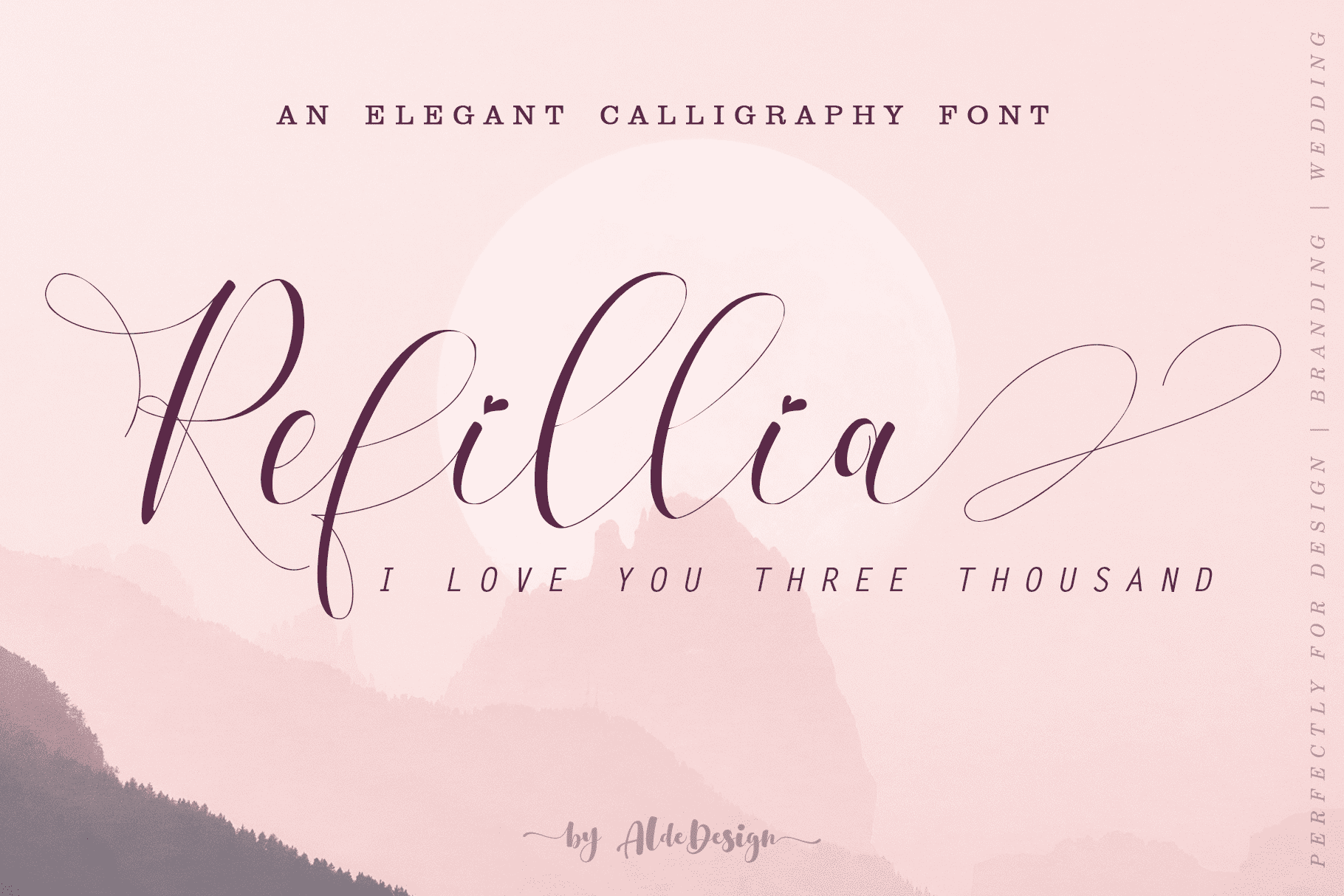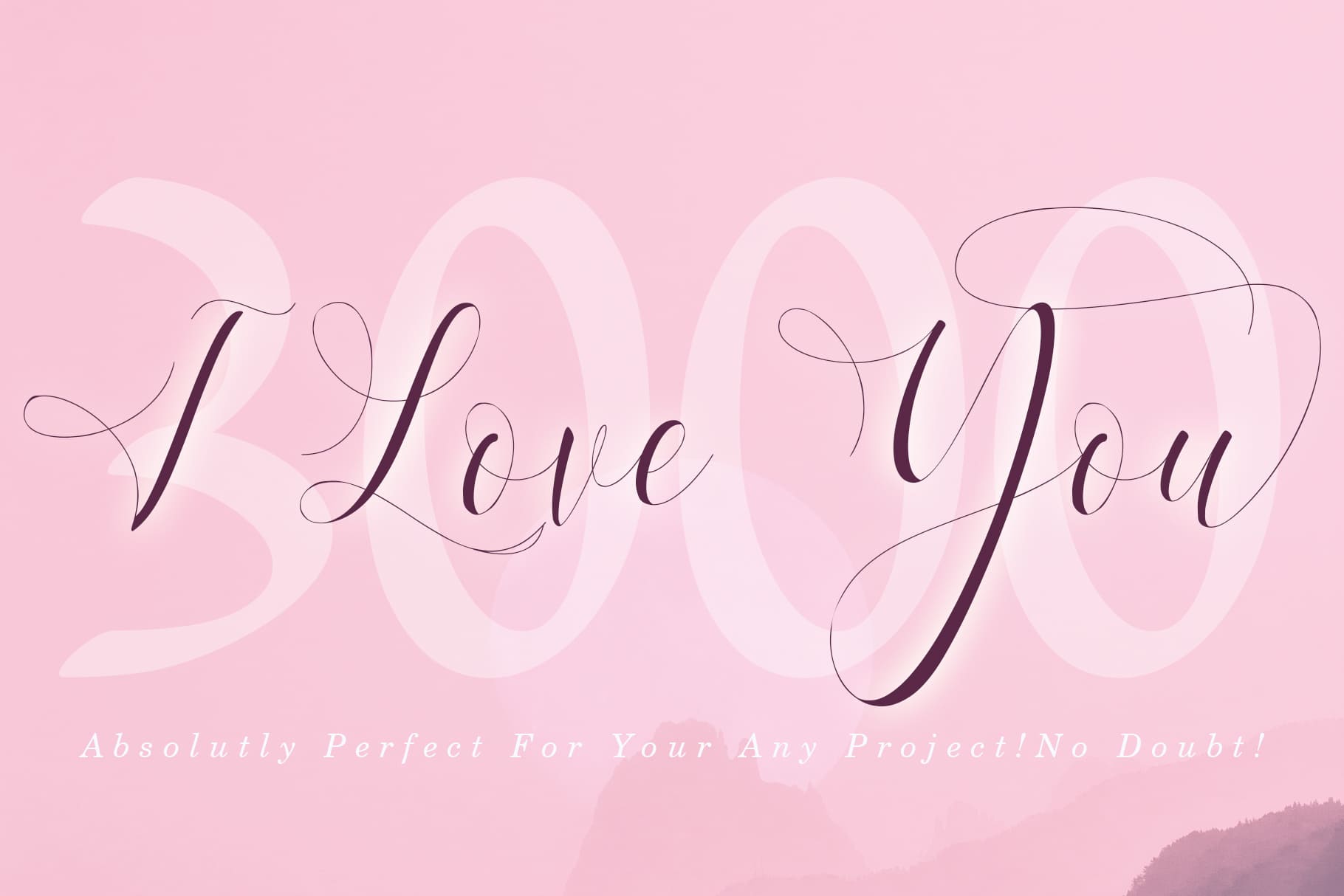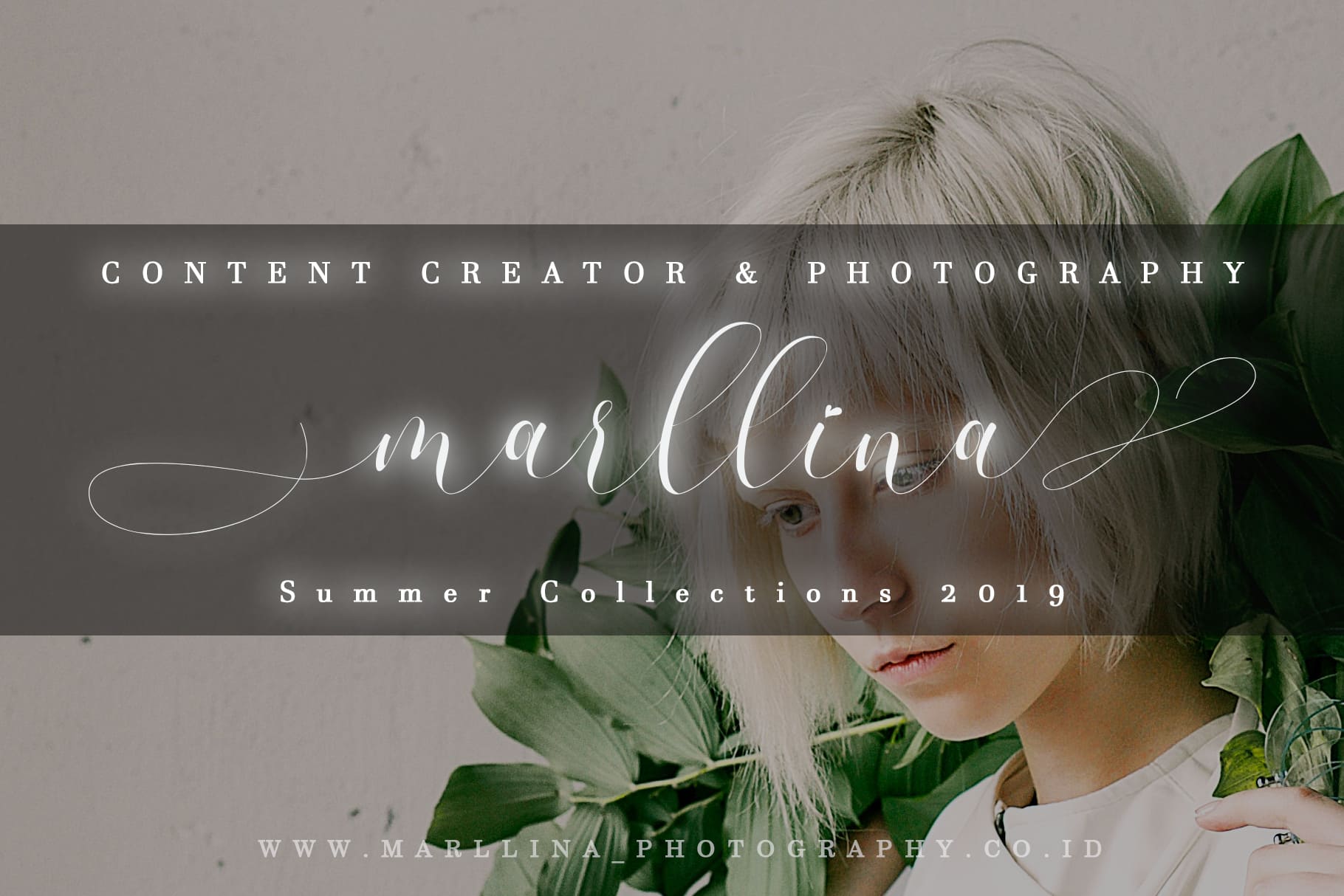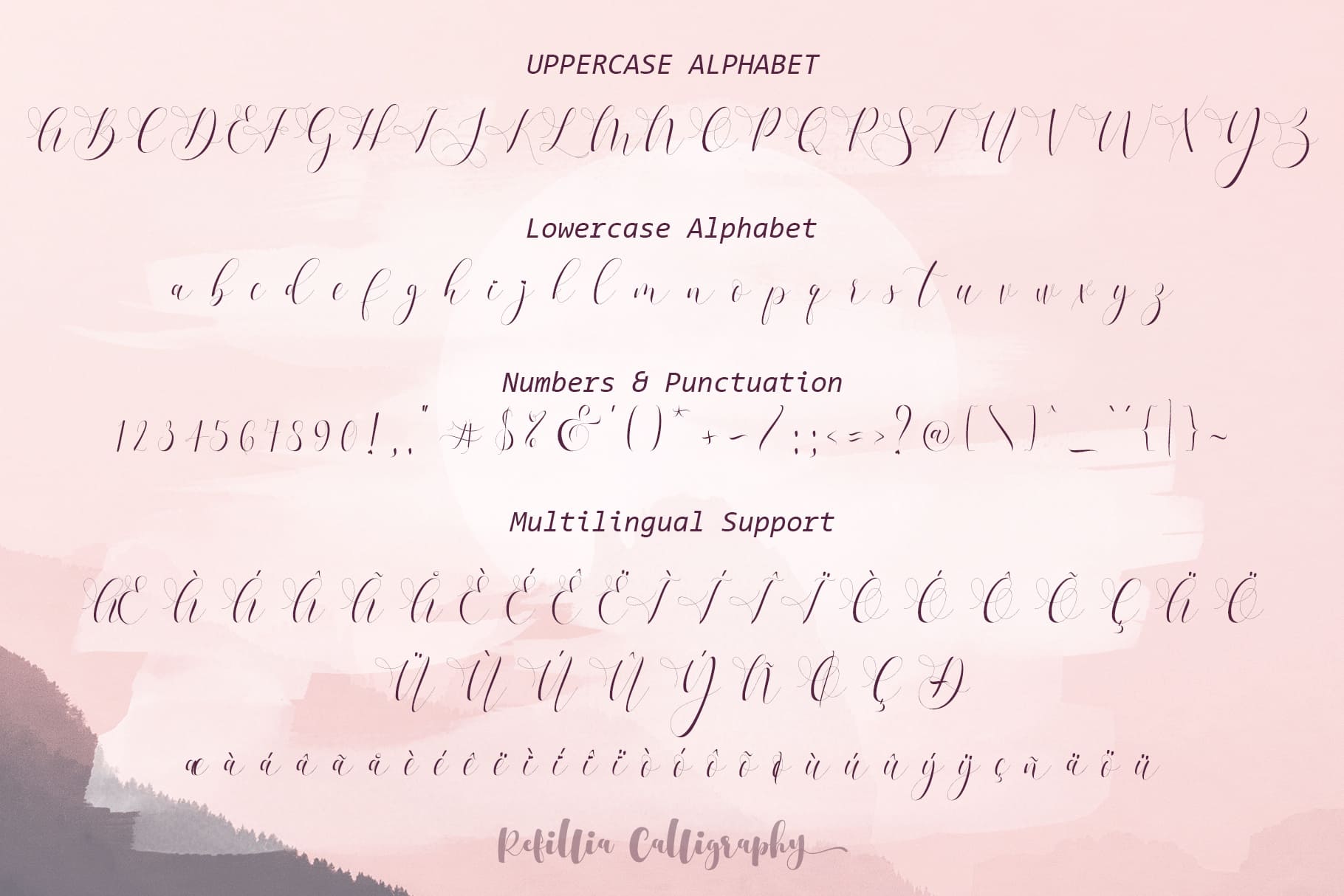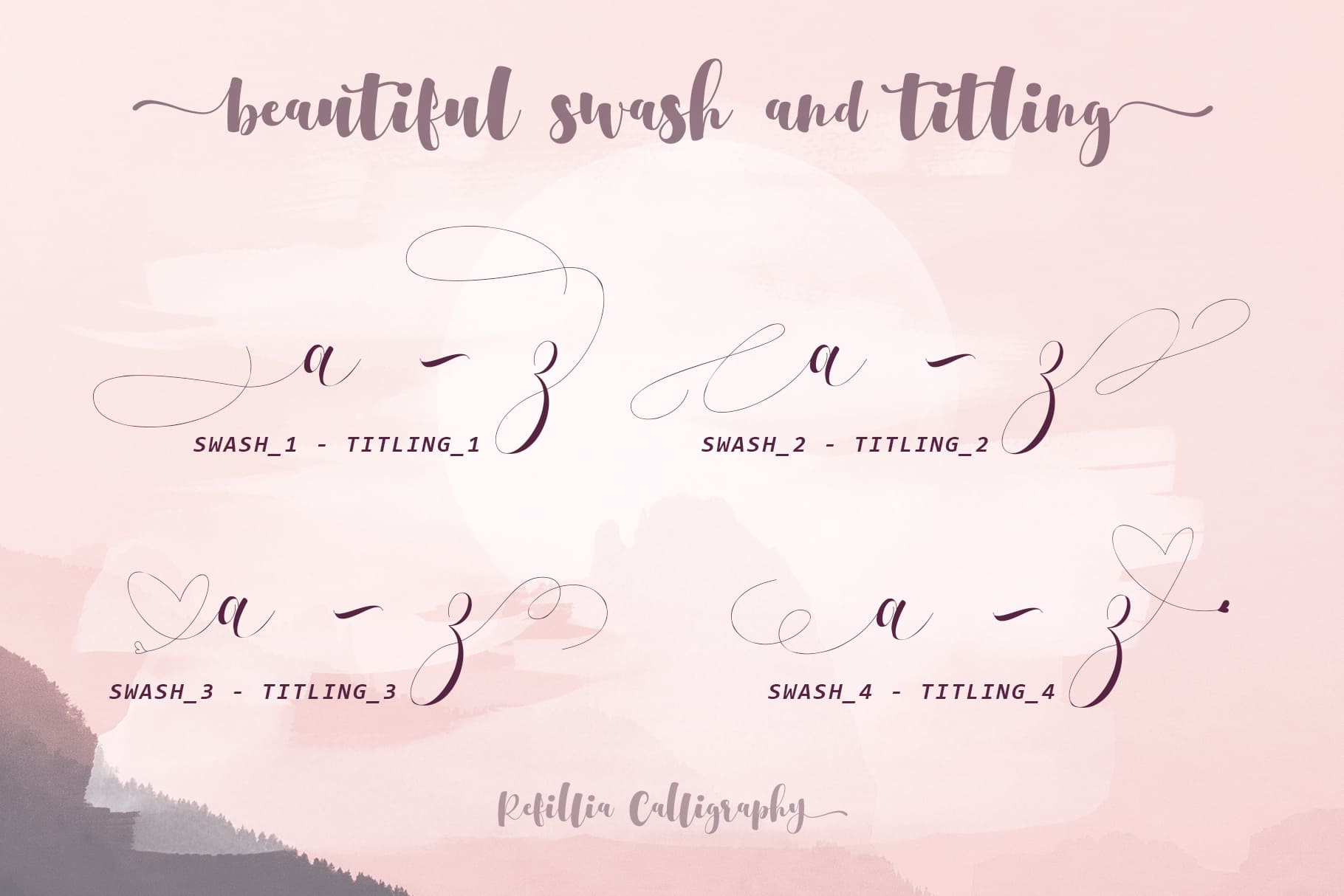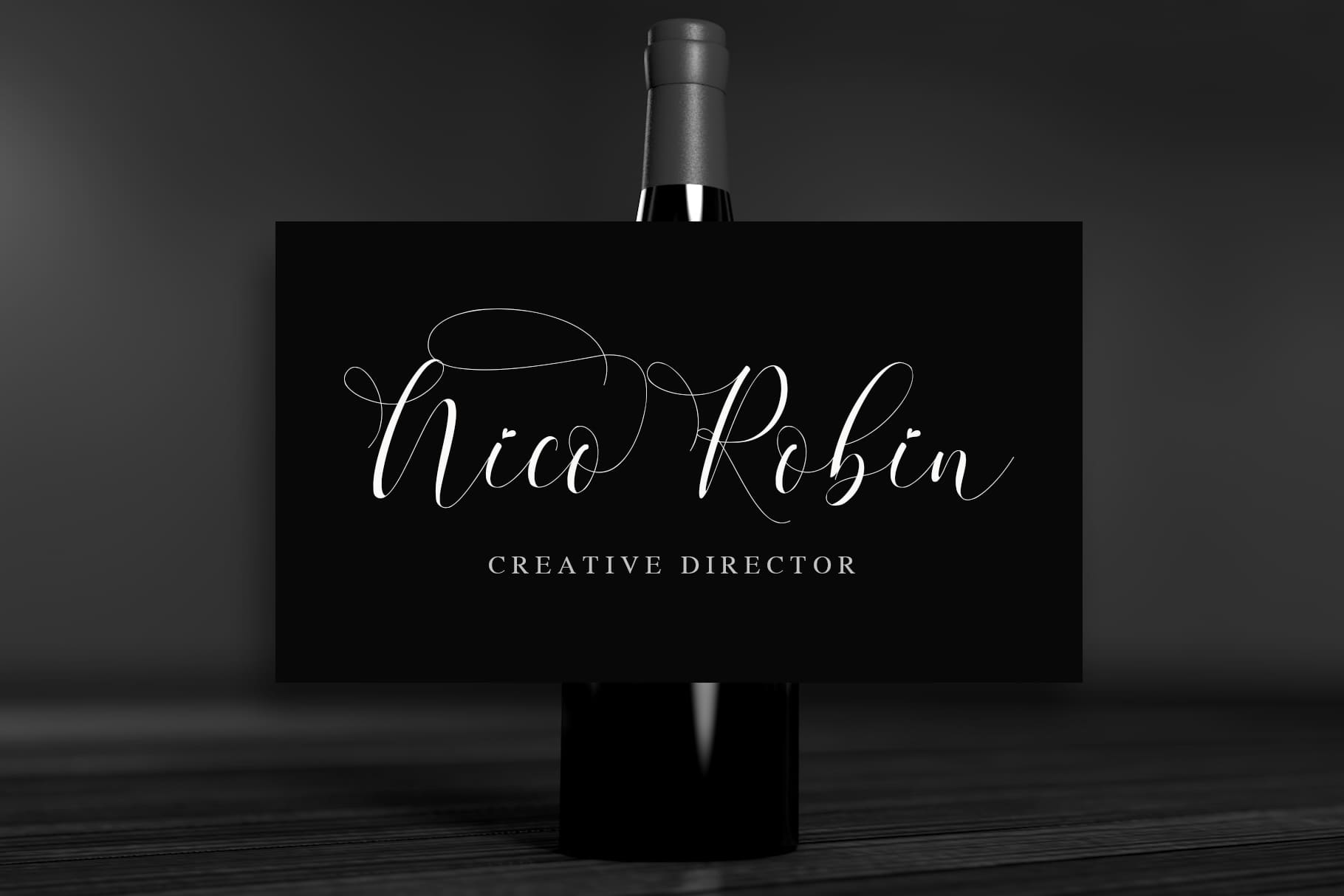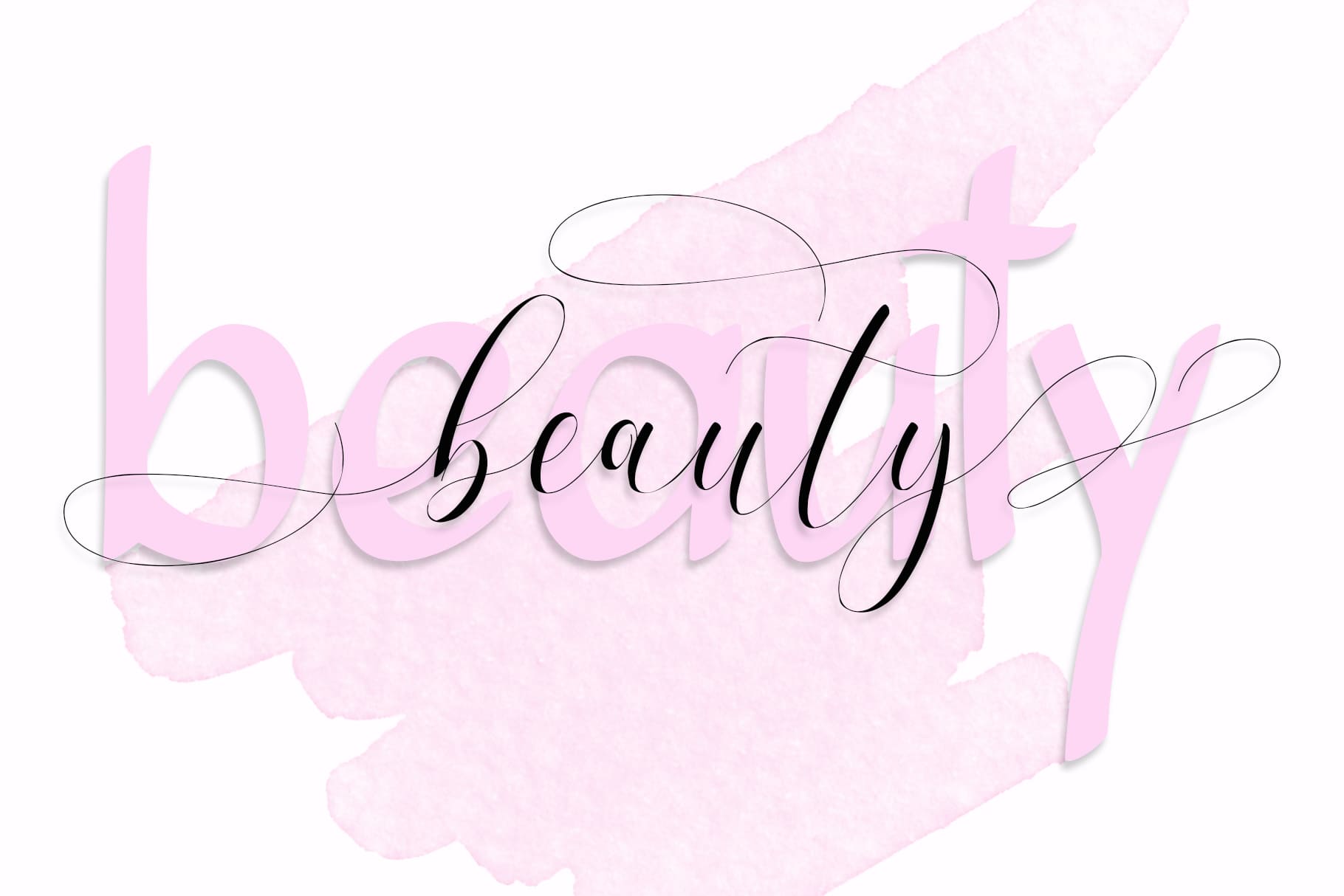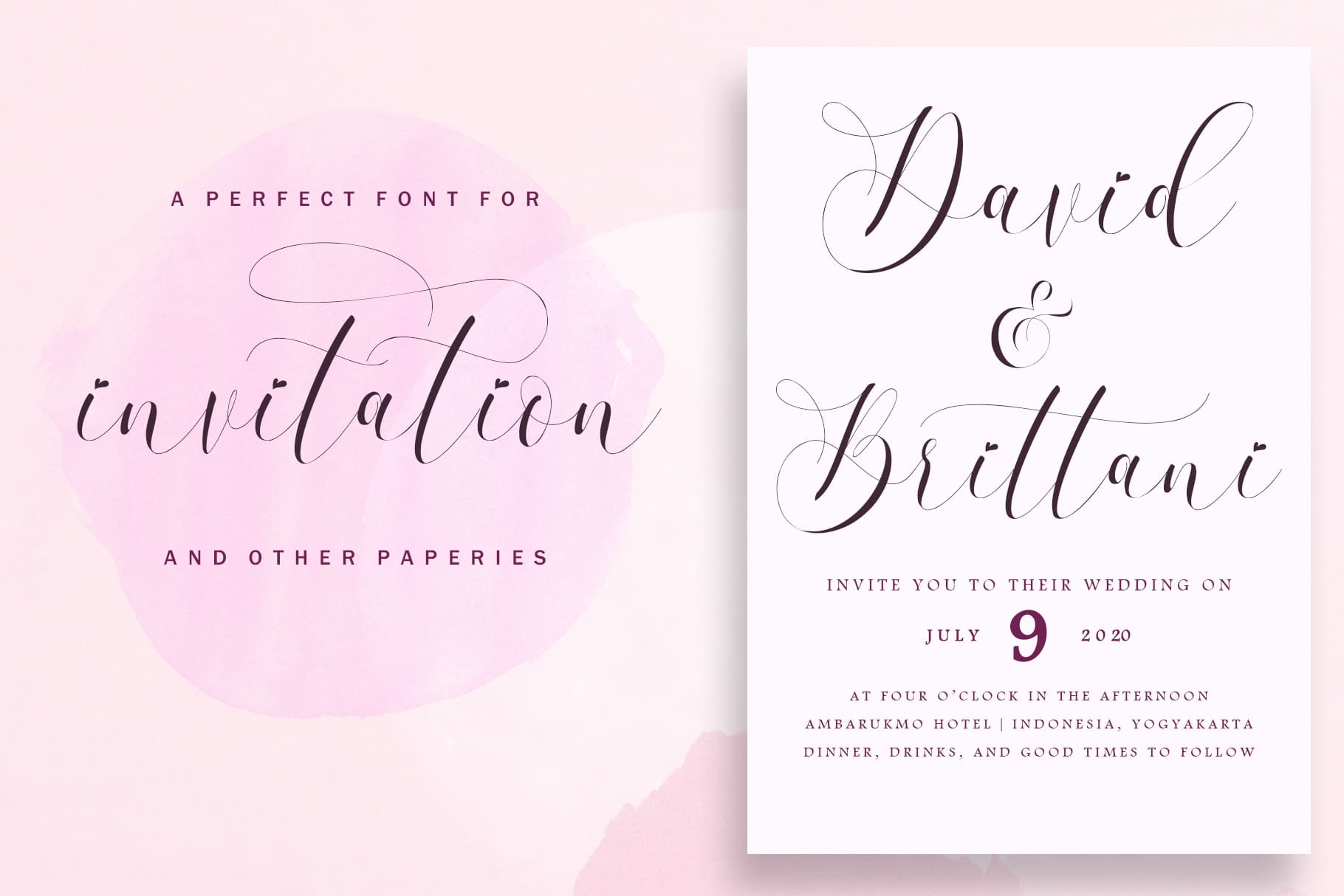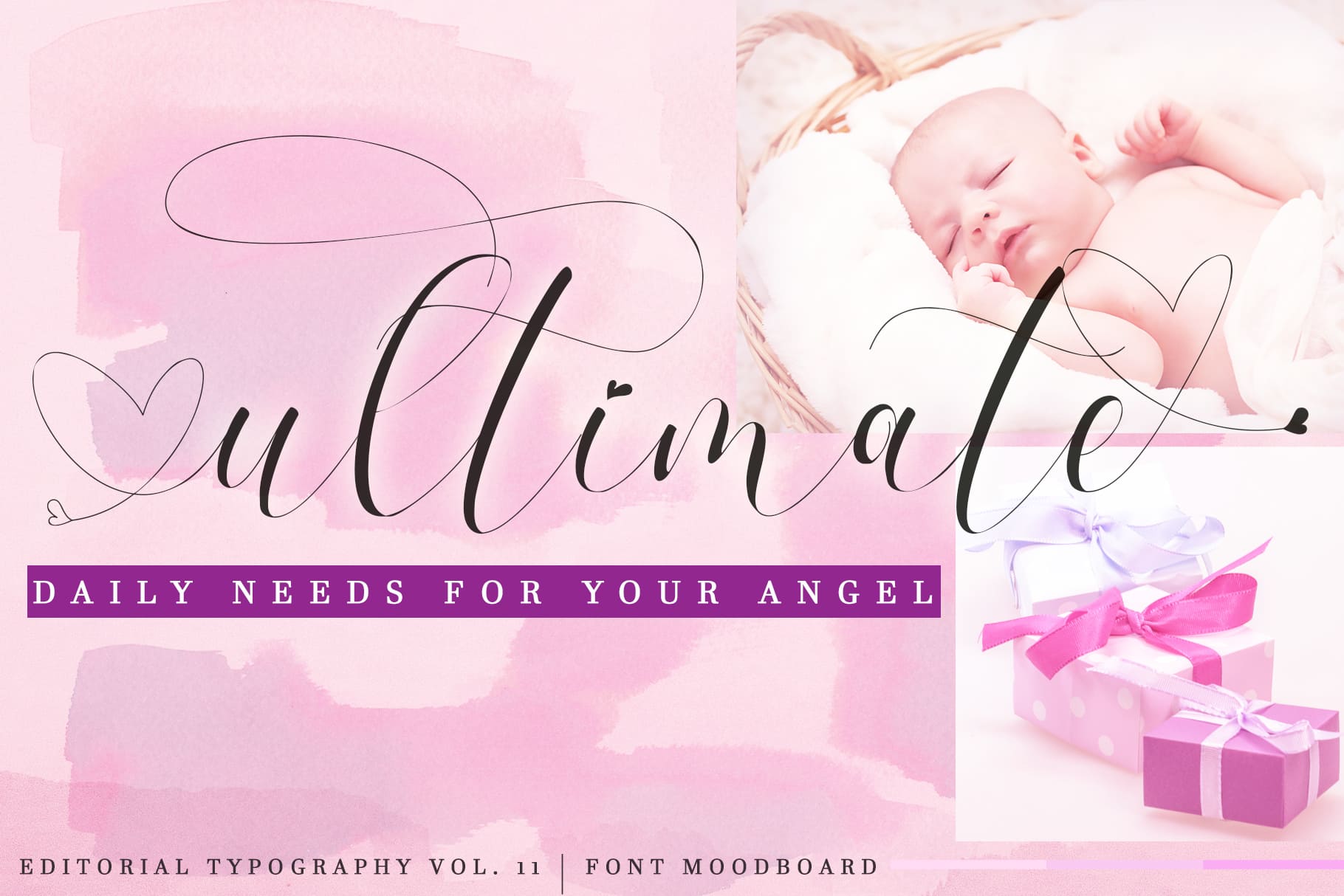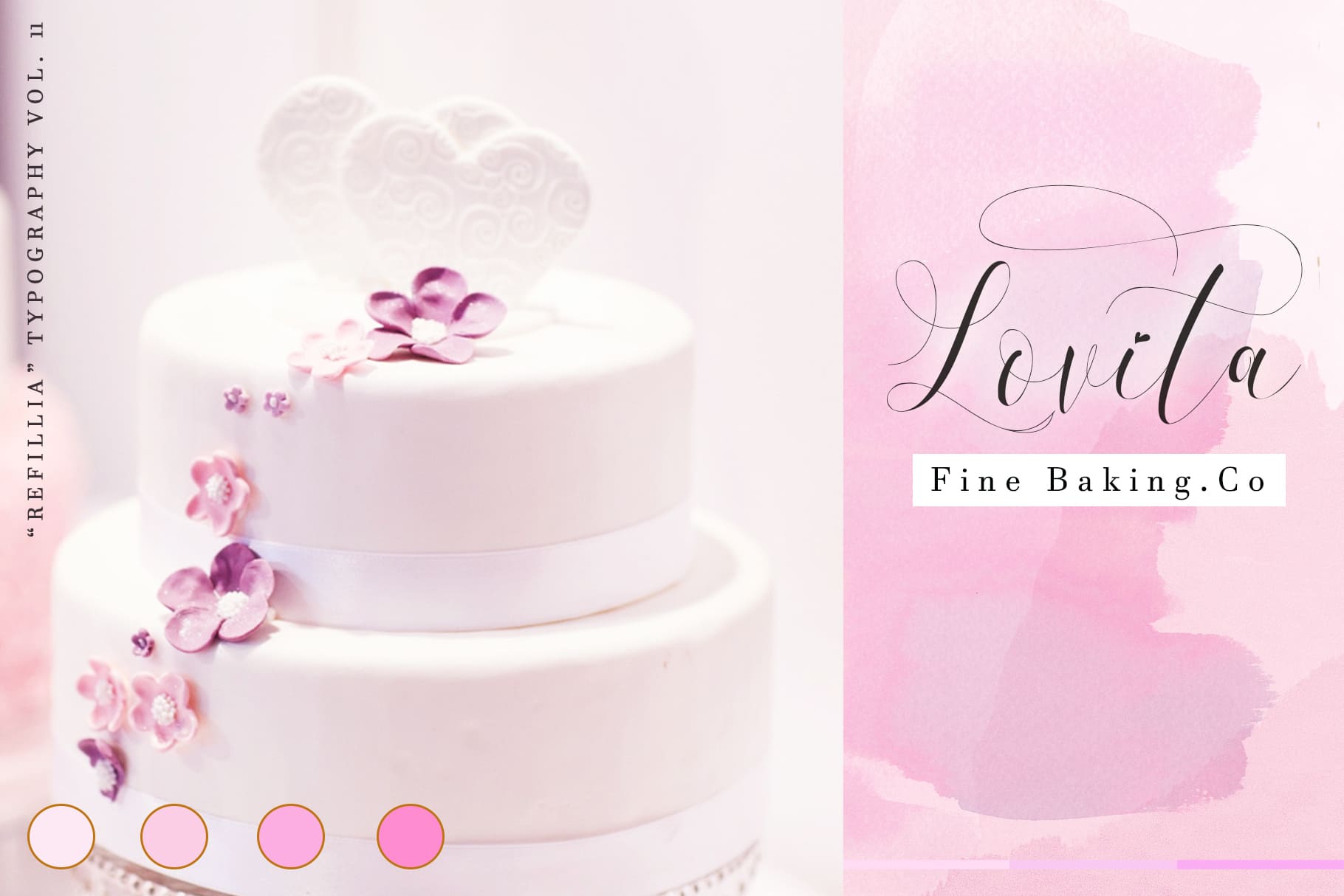
Refillia Calligraphy is a stylish and modern calligraphy font that features a varying baseline and smooth lines.
Refillia Calligraphy can be used for various purposes such as headings, weddings, invitations, signatures, logos, branding, t-shirts, letterheads, signage, labels, news, posters, badges and more.
AldeDesign was founded by Alde Joox in Indonesia, Yogyakarta. AldeDesign specializes in affordable scripts from very casual to very elegant. The design group is obsessed with product quality, beauty, and application. The fonts are perfectly suited for headlines, invitations, fashion, and packaging design.